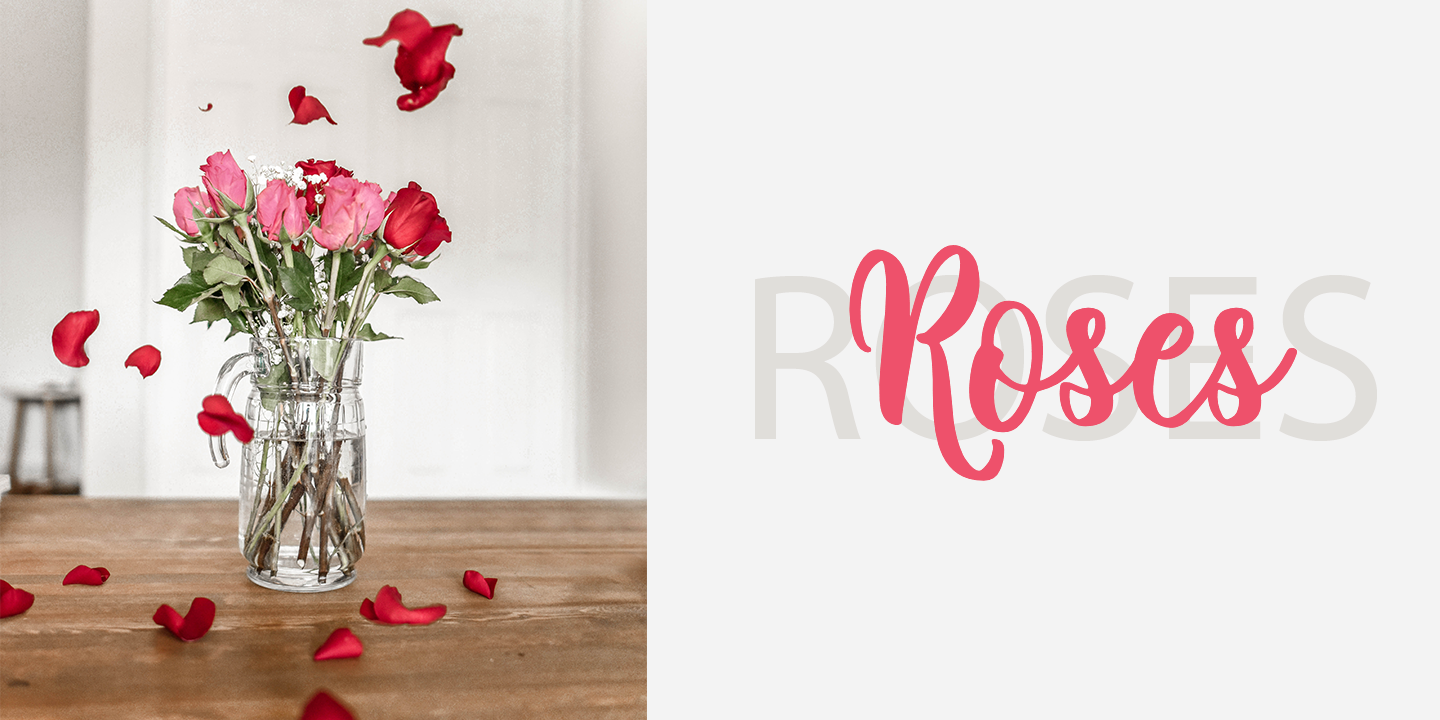
Mignon Font is a wonderfully delicate and charming typeface, perfect for designs that aim to evoke a sense of sweet innocence, playful whimsy, or a handcrafted touch. Imagine it bringing a soft, inviting feel to baby shower invitations, adding a delightful element to a children's book illustration, or providing a gentle, personal look to branding for a small, artisan craft business. Its often rounded forms, slightly irregular lines, and a hint of hand-drawn character make it ideal for creative digital content, charming product packaging, and any print materials where a sense of warmth, lightheartedness, or artistic individuality is desired. From a whimsical blog header to cozy nursery decor, this font infuses designs with personality and a memorable, comforting quality.
Why Mignon Font is So Exciting
What makes Mignon Font so exciting is its ability to convey a sense of genuine charm and approachable sweetness. It often features letterforms that have a gentle bounce, a subtle irregularity, or a distinctly personalized touch, giving it a unique and endearing personality that stands apart from more rigid typefaces. This isn't a stern or formal font; its power lies in its ability to evoke smiles, warmth, and a touch of innocent imagination. It can make any text it's applied to feel more intimate and engaging, instantly drawing in the viewer with its amiable aesthetic. This distinct character is what truly sets Mignon Font apart.
Mignon Font Family
The Mignon Font family typically focuses on delivering its unique, expressive style with charm and consistency. While it might not have an extensive range of traditional weights like a versatile sans-serif, you can generally expect to find a finely crafted Regular weight, often accompanied by bold versions or stylistic alternatives that further enhance its distinctive aesthetic. These variations are designed to provide flexibility within its specific style, allowing designers to create compelling headlines, subheadings, and decorative elements that maintain the font's endearing and charming appeal across different applications.